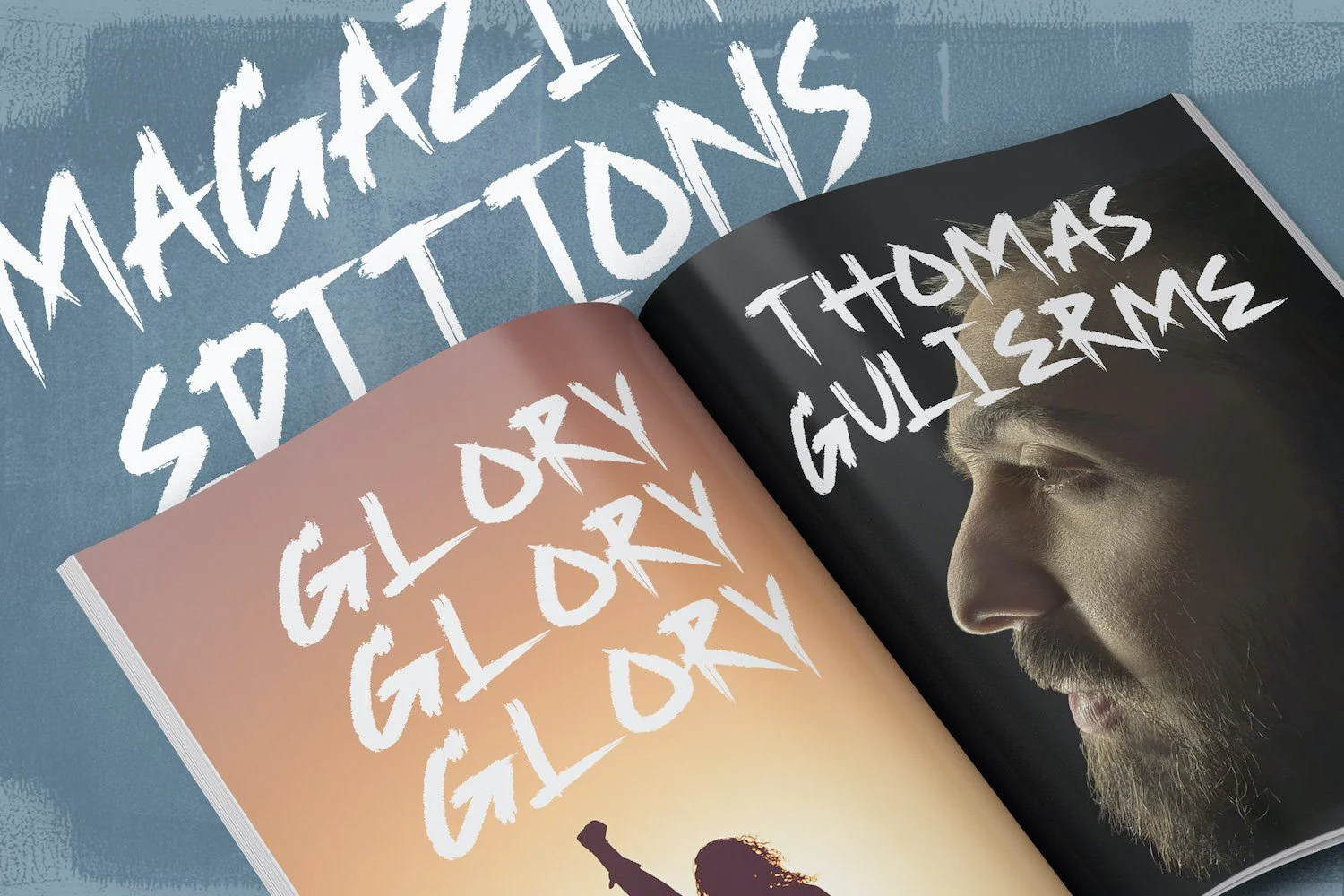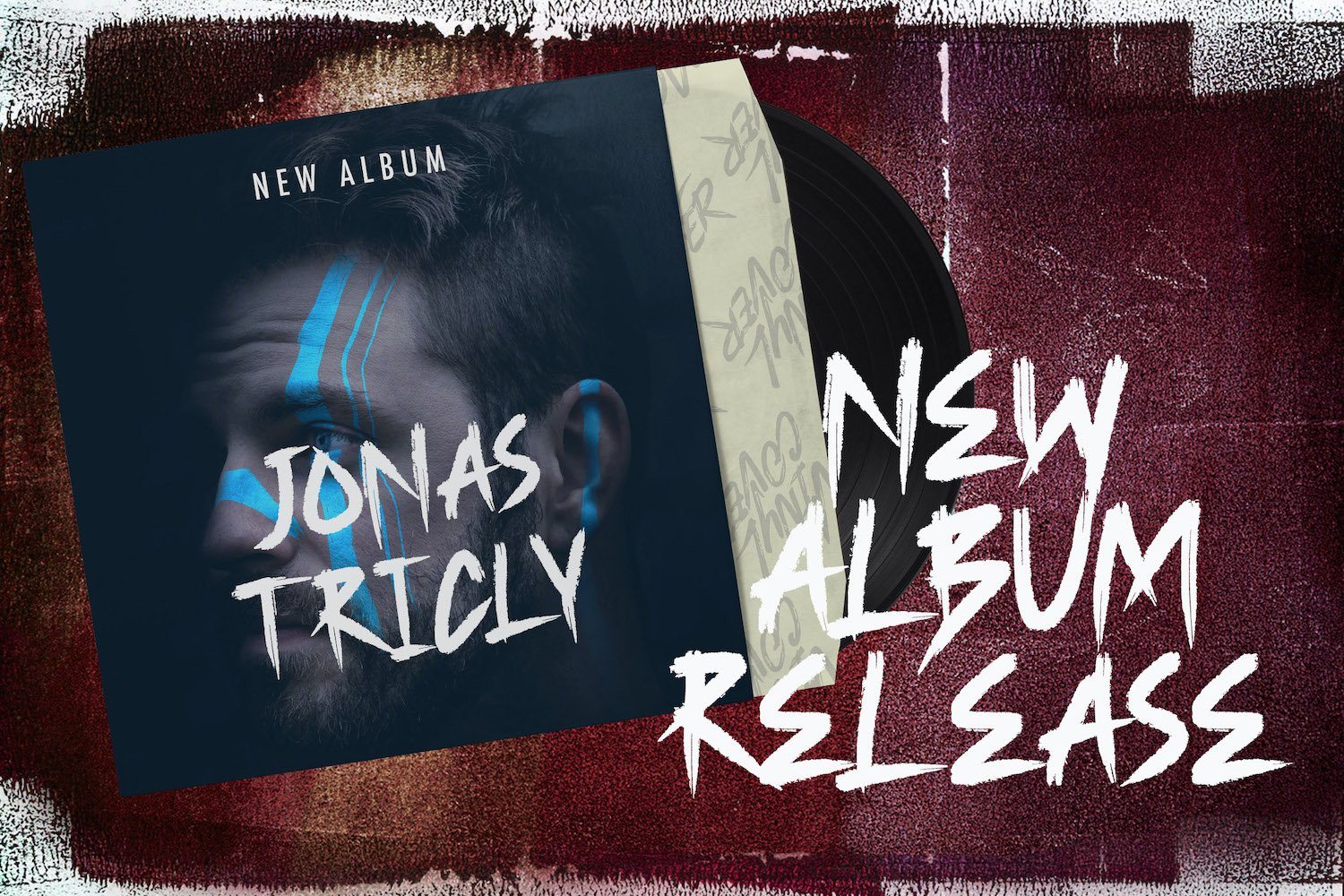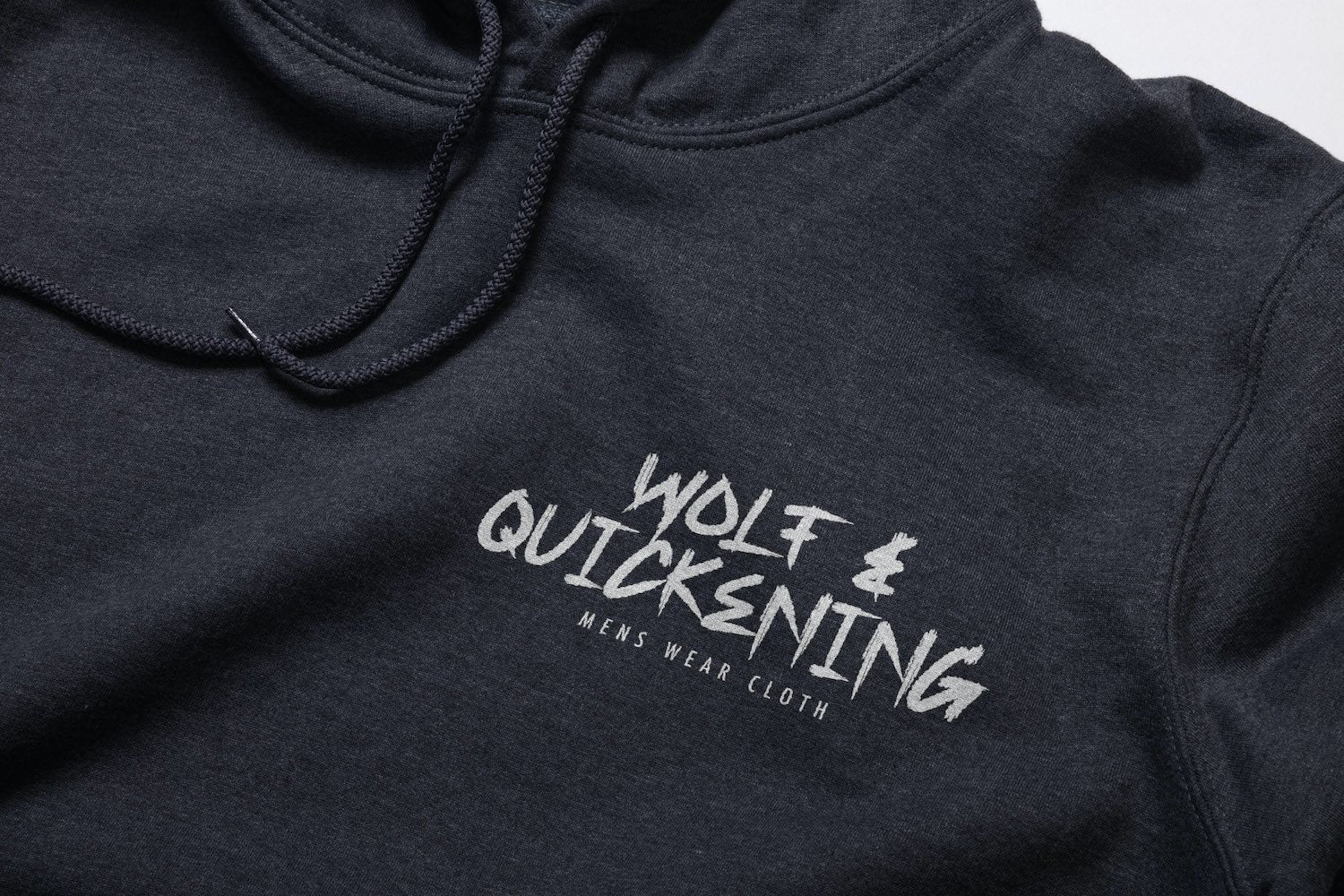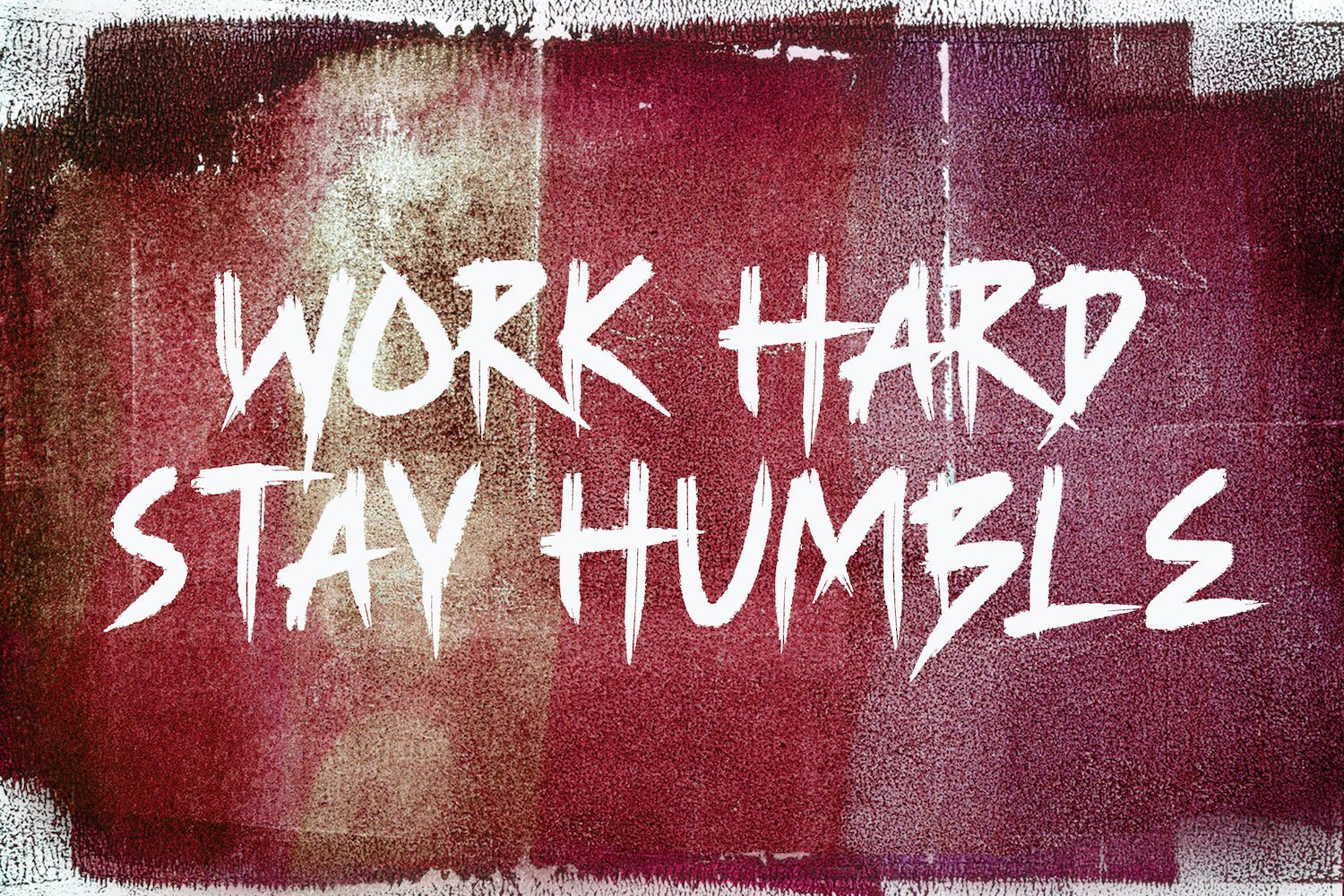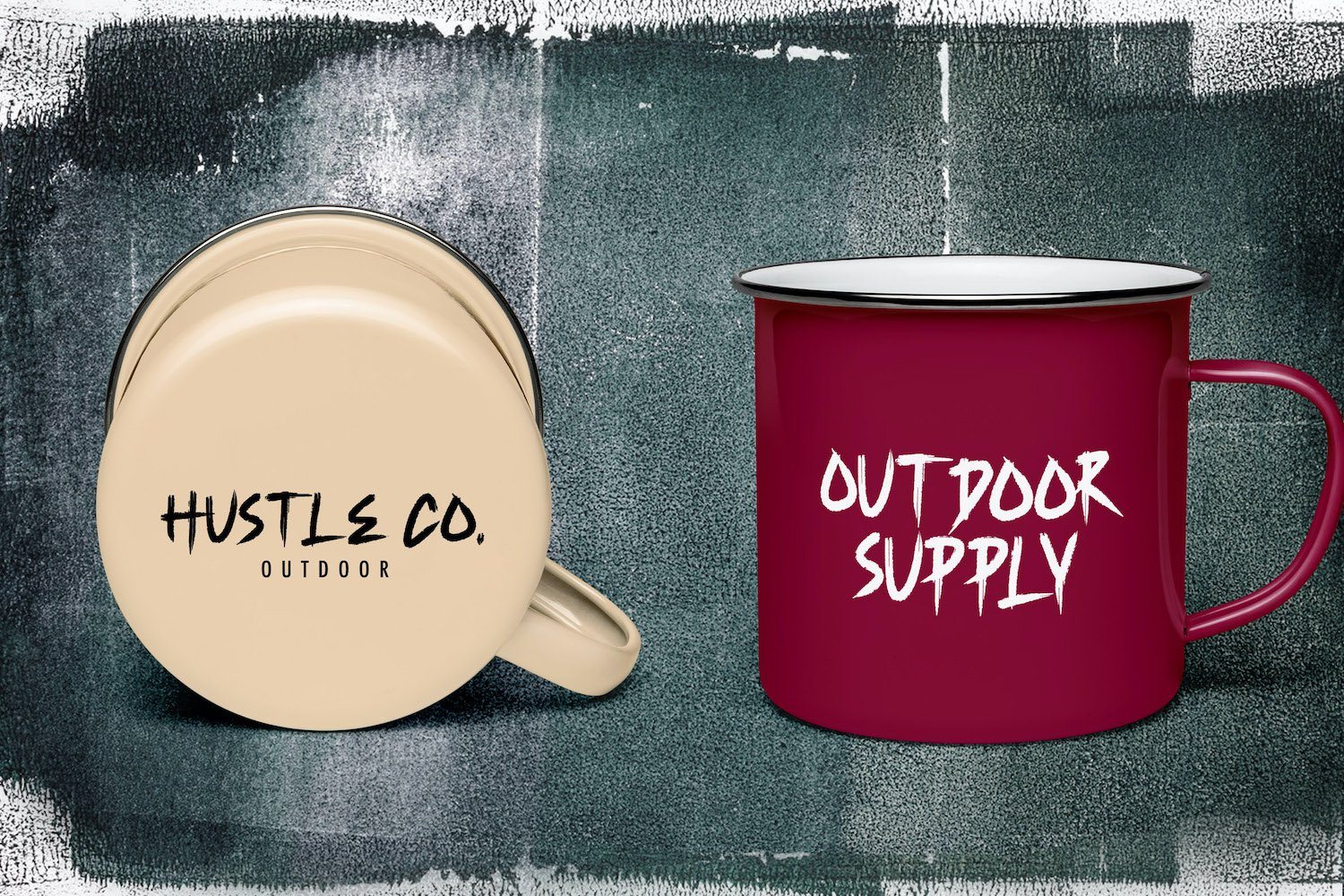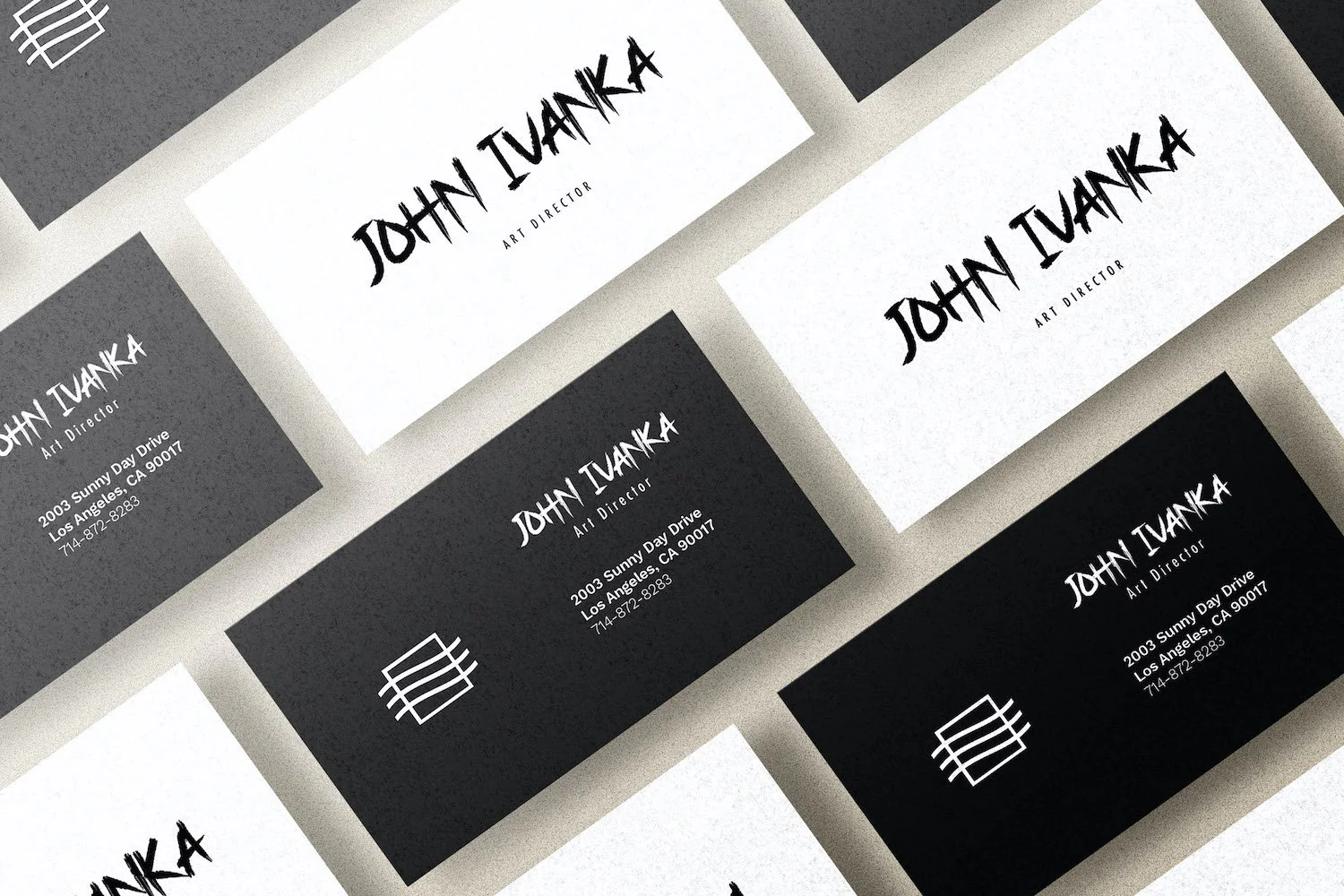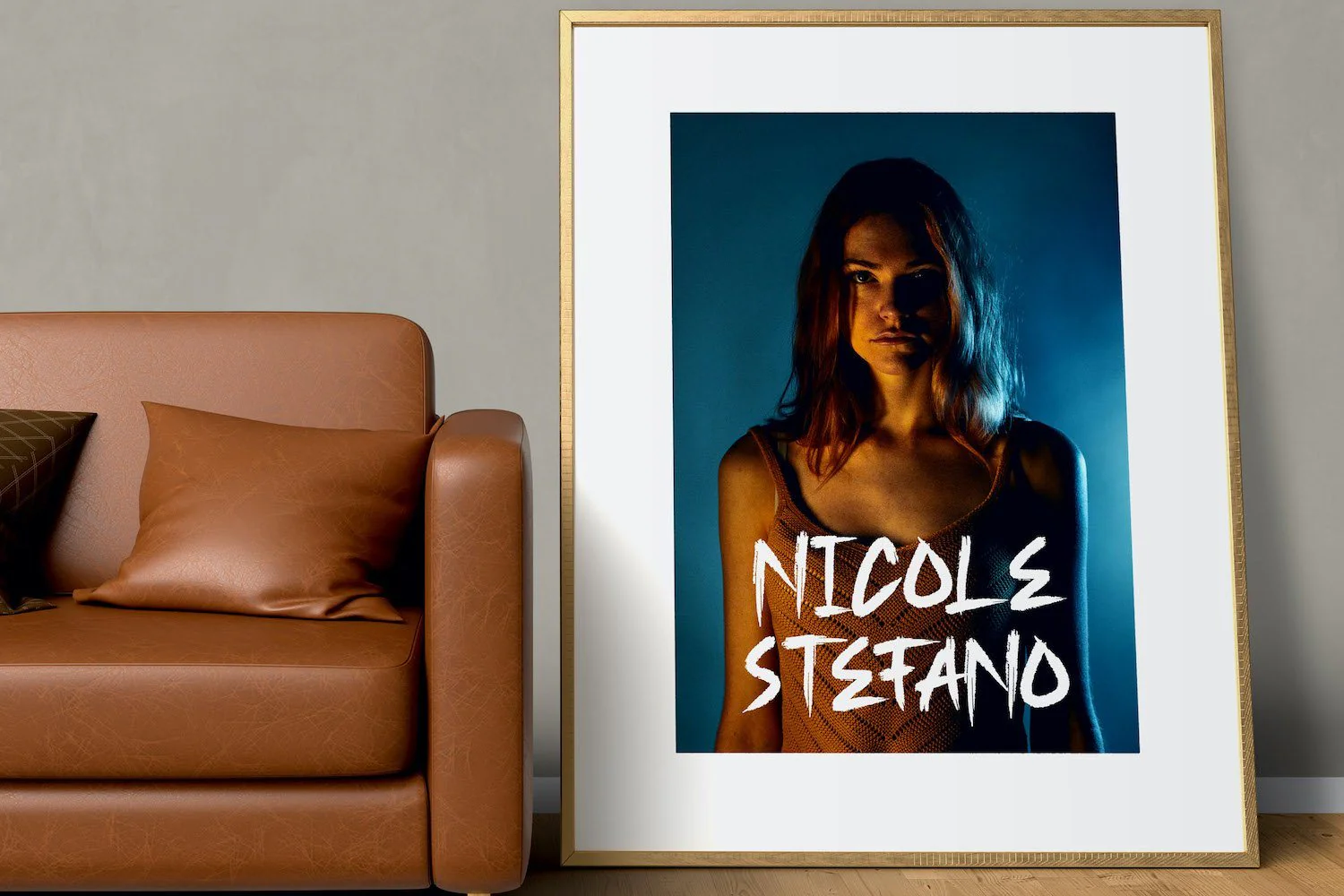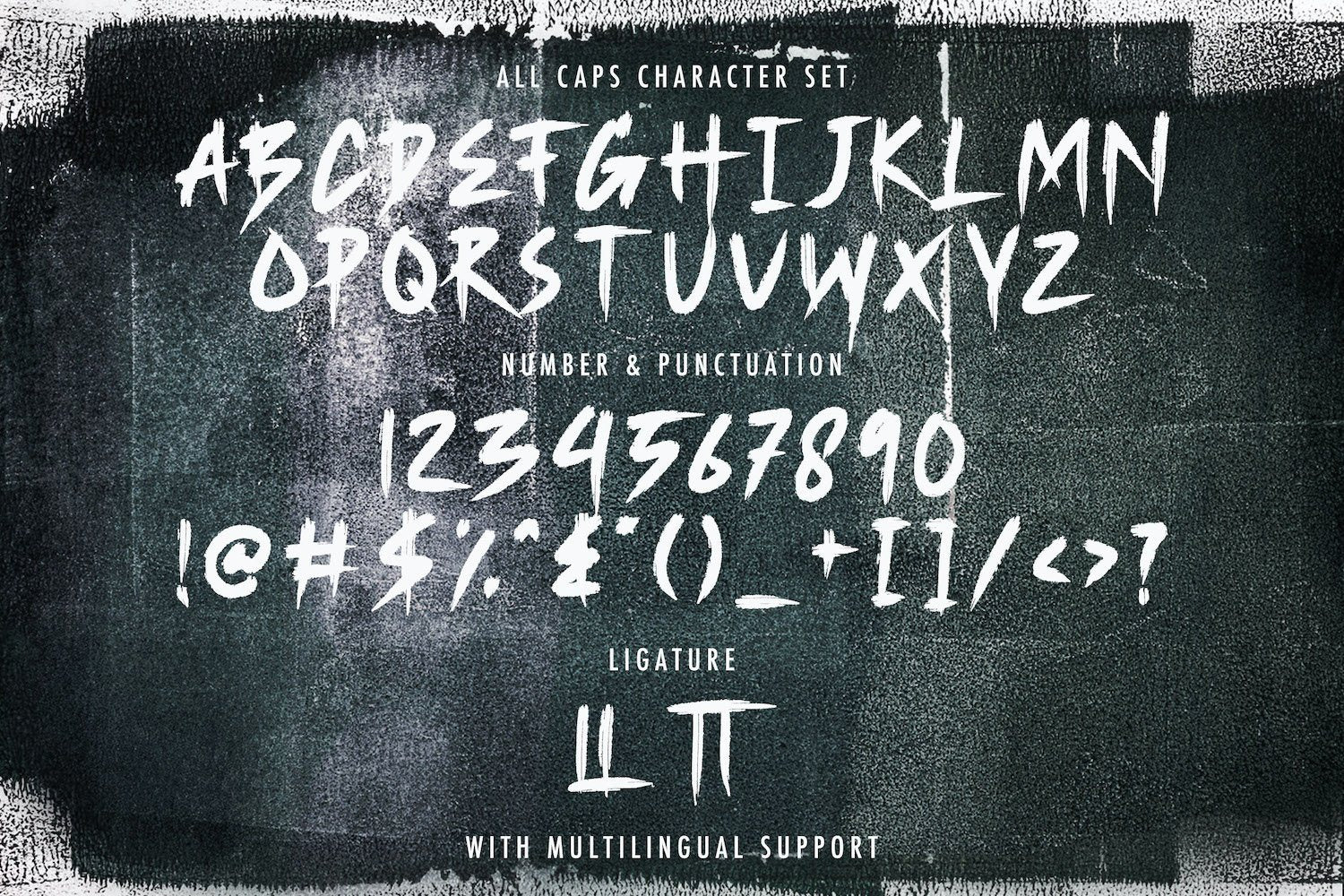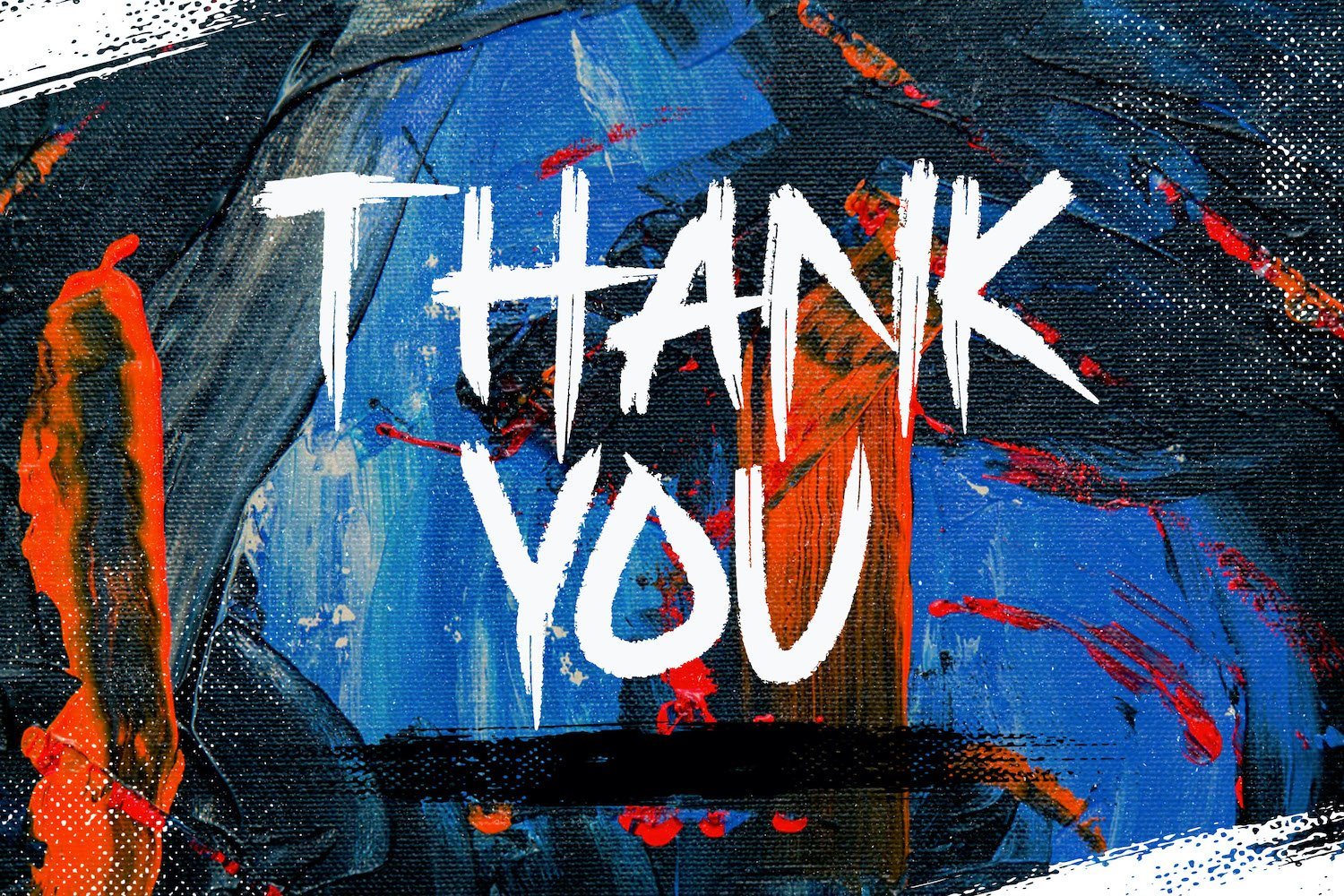
Parakan Brush - Display Brush Font
Introducing Parakan Brush - Display Brush Font
Parakan Brush is a graffiti brush font. Fall in love with its incredibly versatile style and use it to create spectacular designs!
Introducing Parakan Brush - Display Brush Font
Parakan Brush is a graffiti brush font. Fall in love with its incredibly versatile style and use it to create spectacular designs!